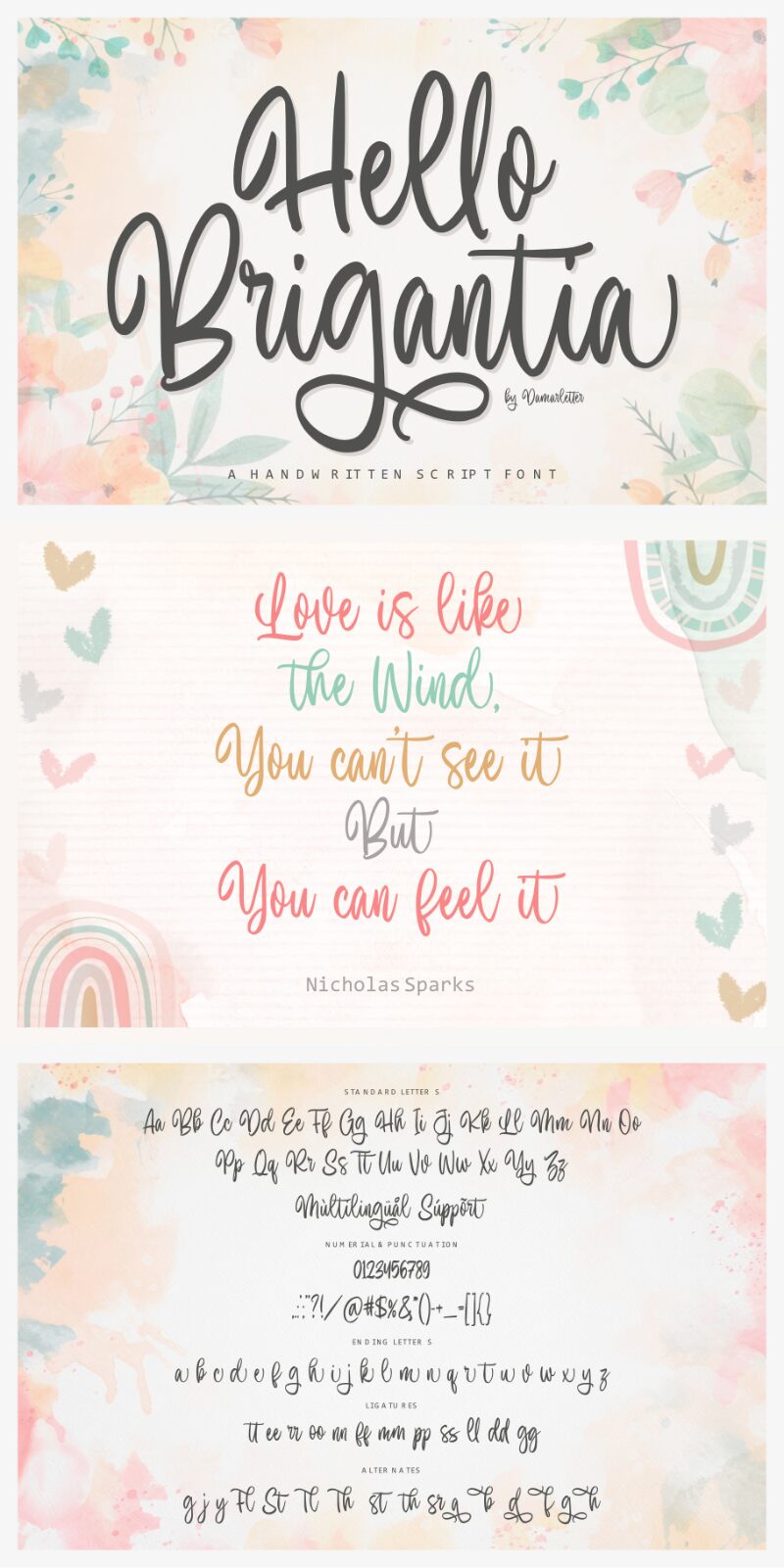
Hello Brigantia font family by Damarletter is a licentious handwritten font family that intends to be useful for drafting informal texts and irregular documents that could benefit from special effects after printing. The font has all the letters one could need from A to Z and all the numbers required by any context that features a lot of numeric entries.
Postcards, announcement cards, weddings invitation cards, academic diplomas, business cards, catalogs, and organizational paperwork can all benefit from this great font that gives the illusion of handwriting.